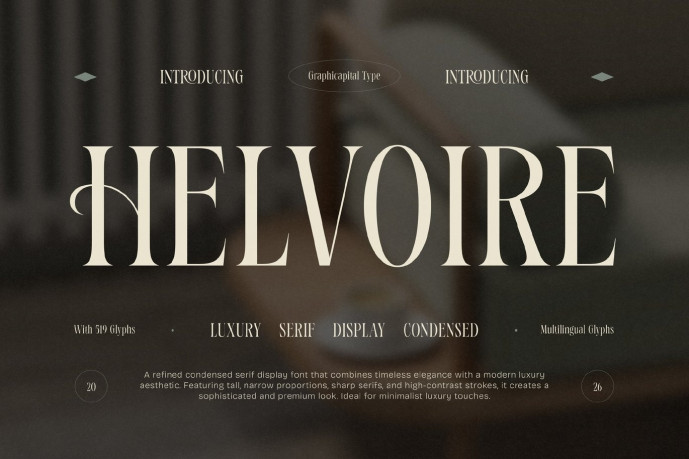
Helvoire Font
Designer: Graphicapital
Helvoire is a refined luxury serif display font designed to bring timeless elegance and modern sophistication to your creative projects. Featuring tall, condensed letterforms, dramatic high-contrast strokes, and beautifully crafted sharp serifs, Helvoire delivers a premium editorial aesthetic that commands attention.
Ideal for branding, posters, headlines, packaging, album art, game visuals, and promotional designs. It adds personality to any creative project and helps your message stand out effortlessly.